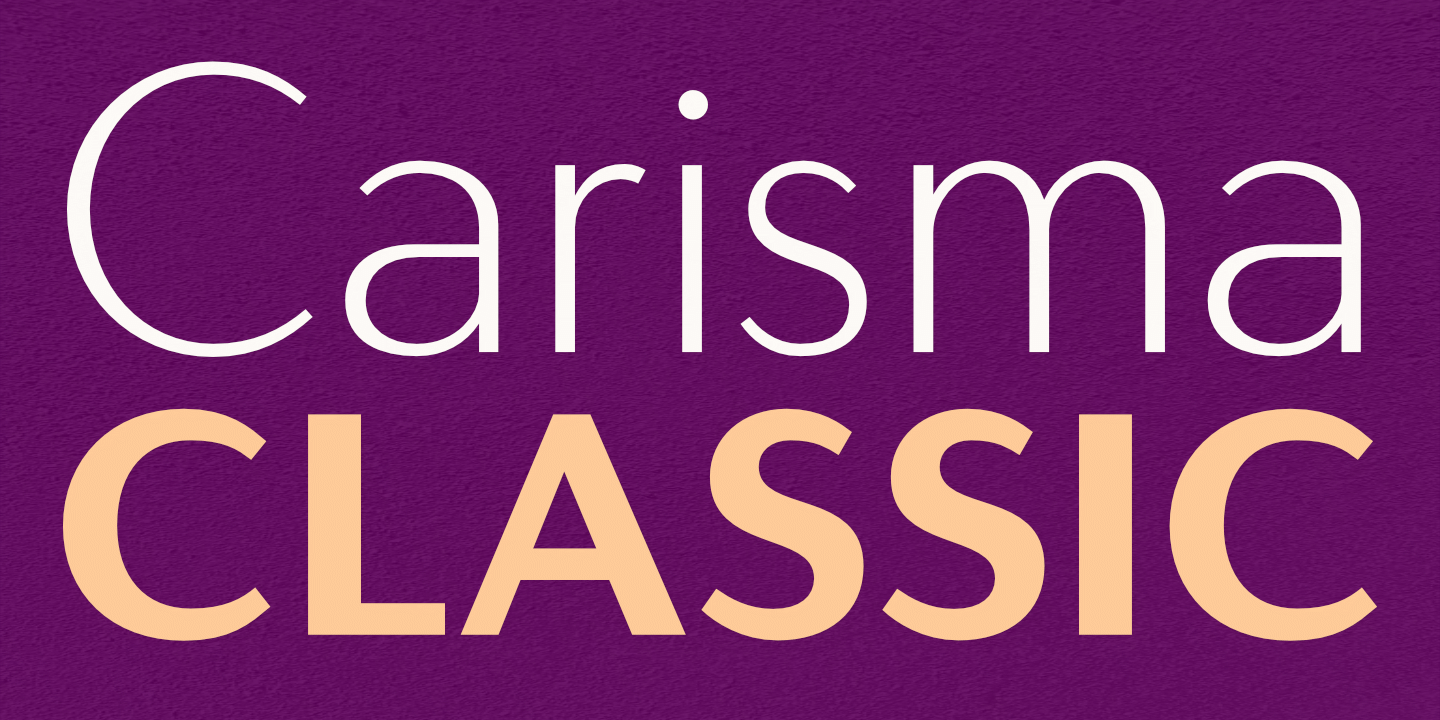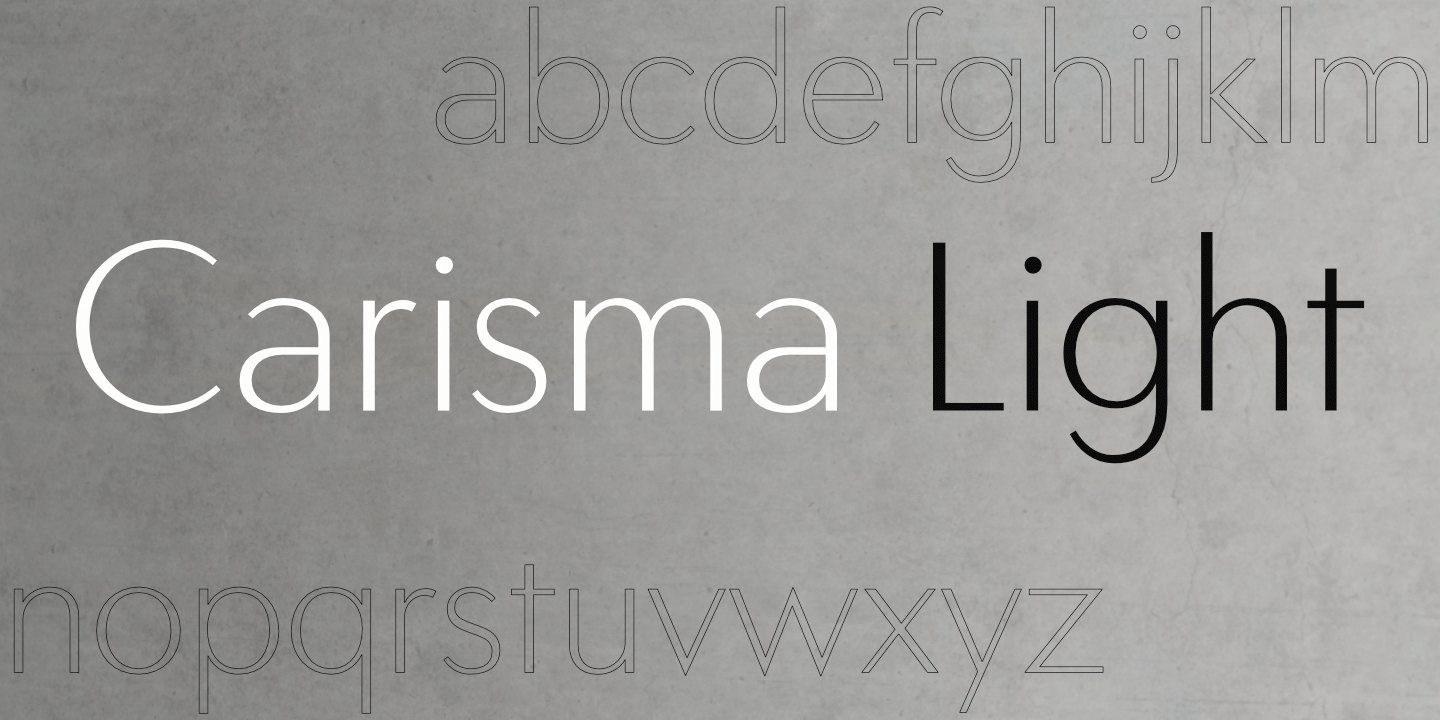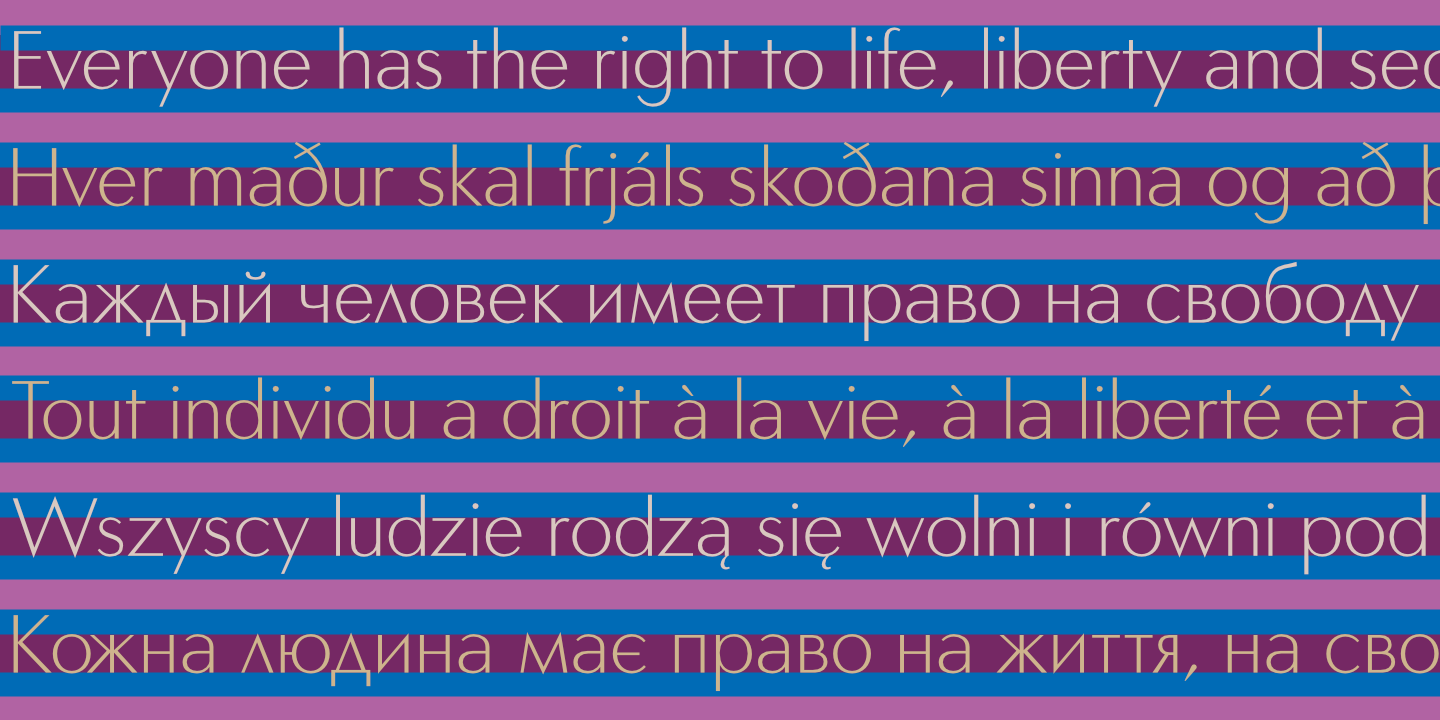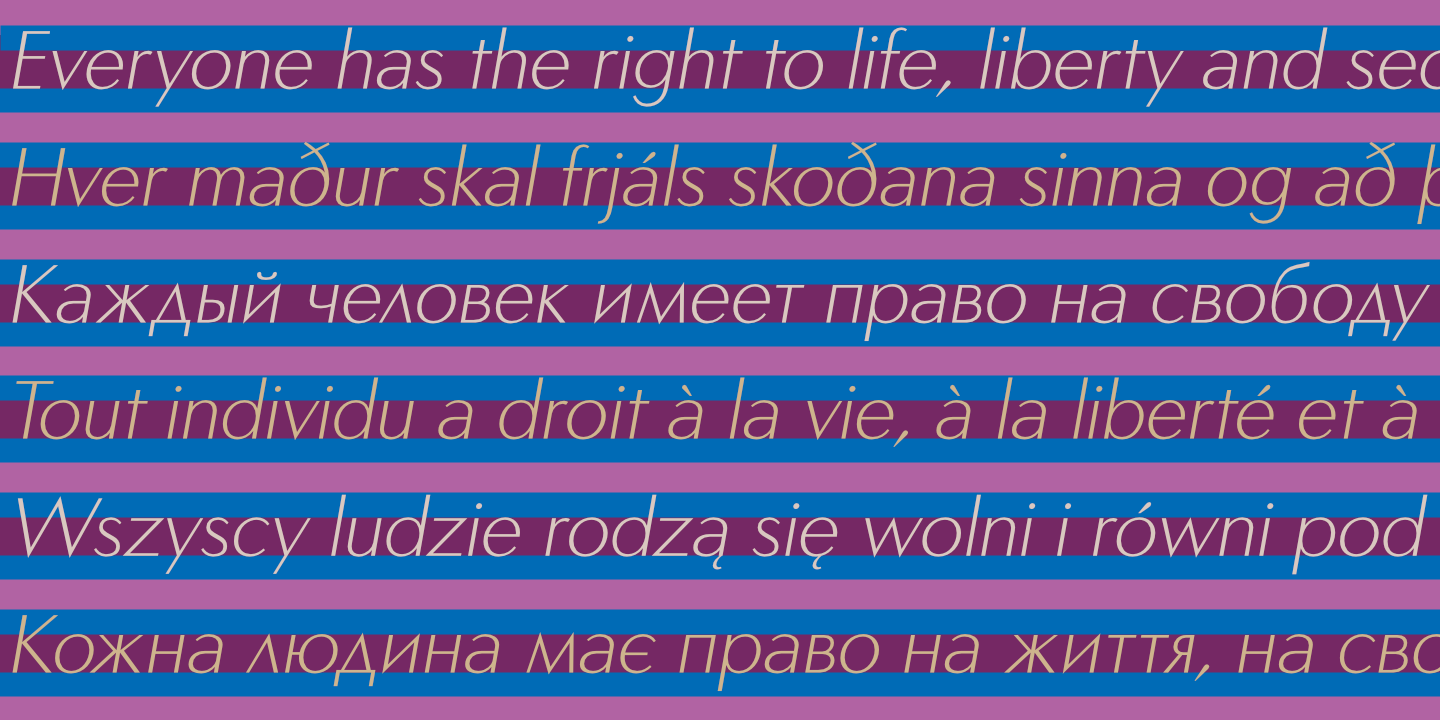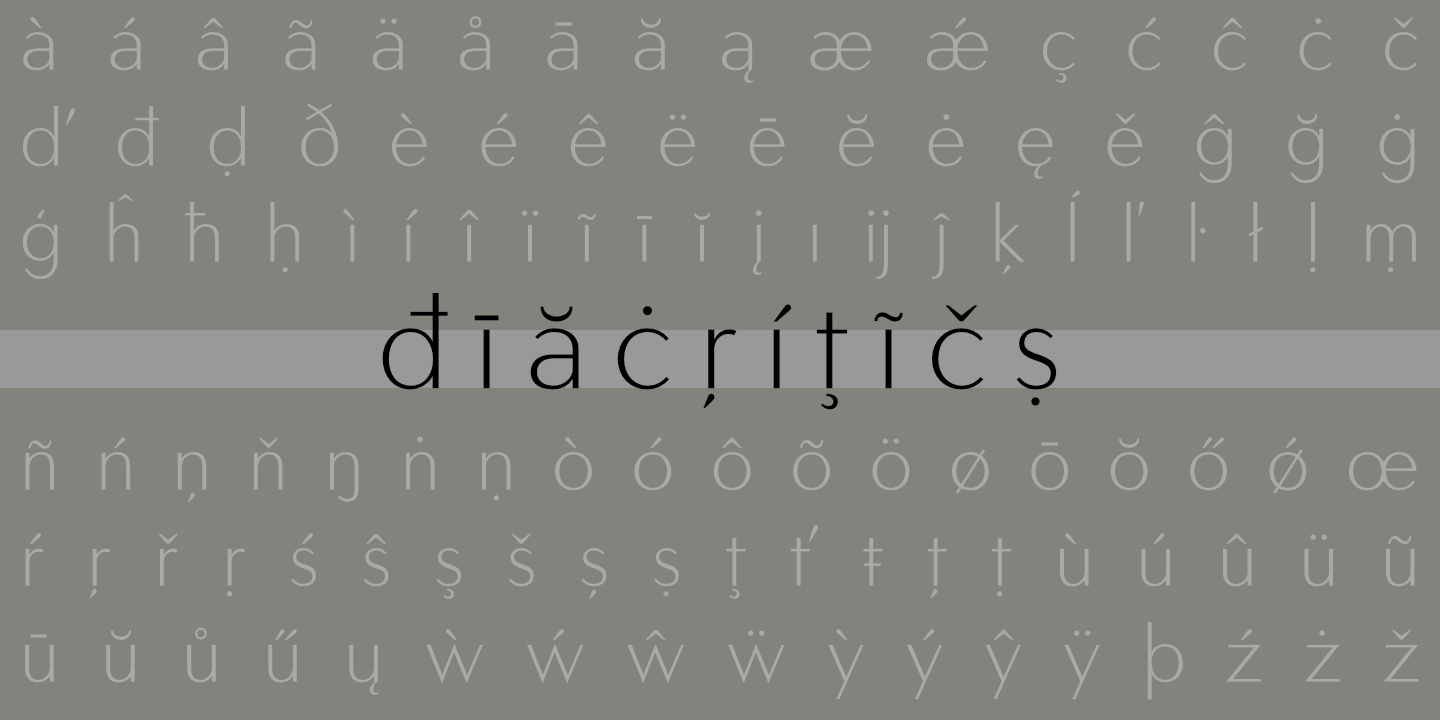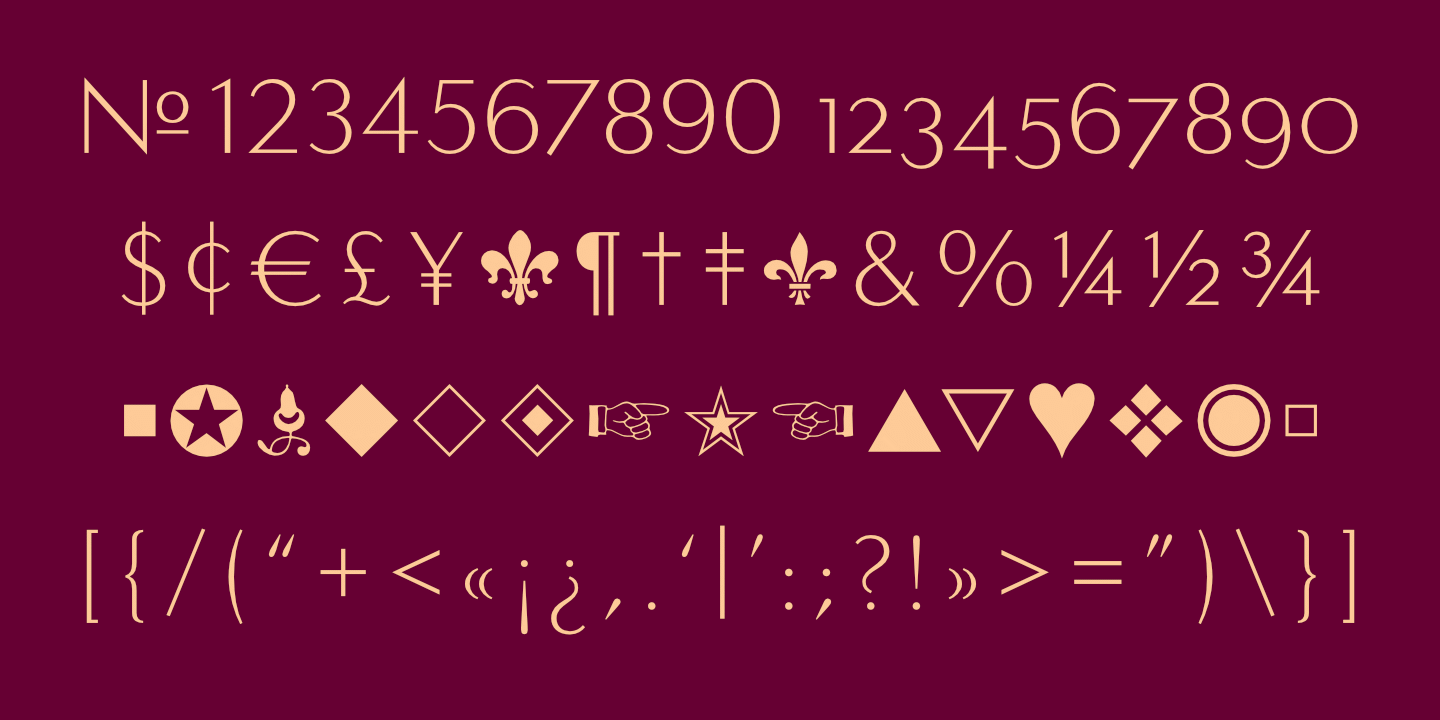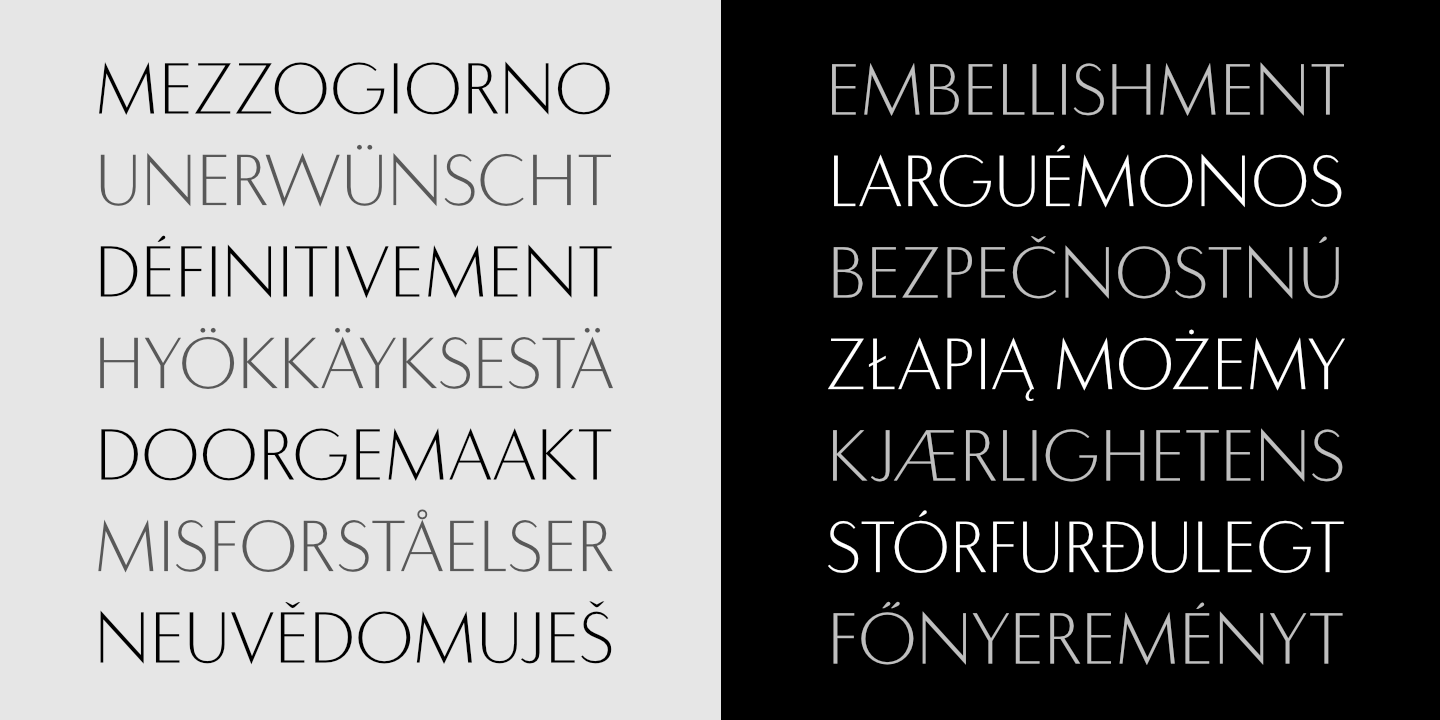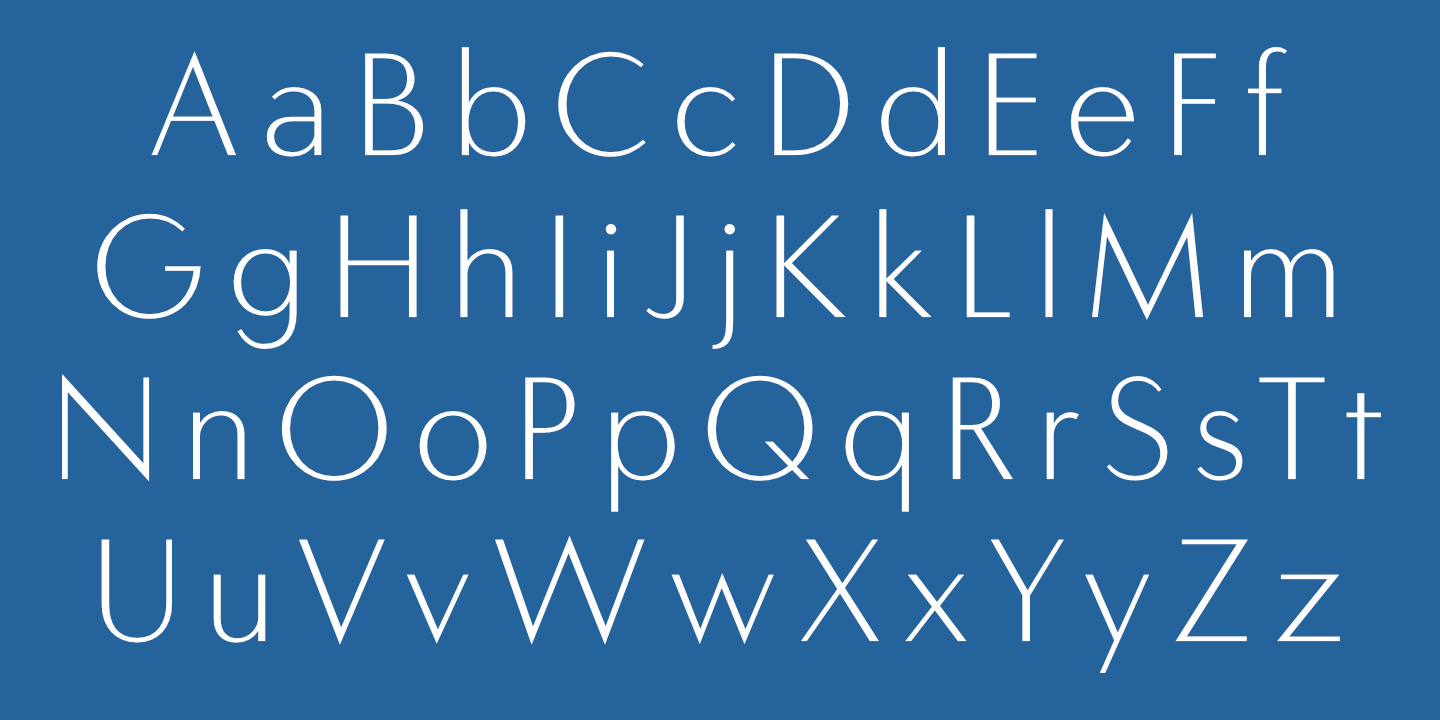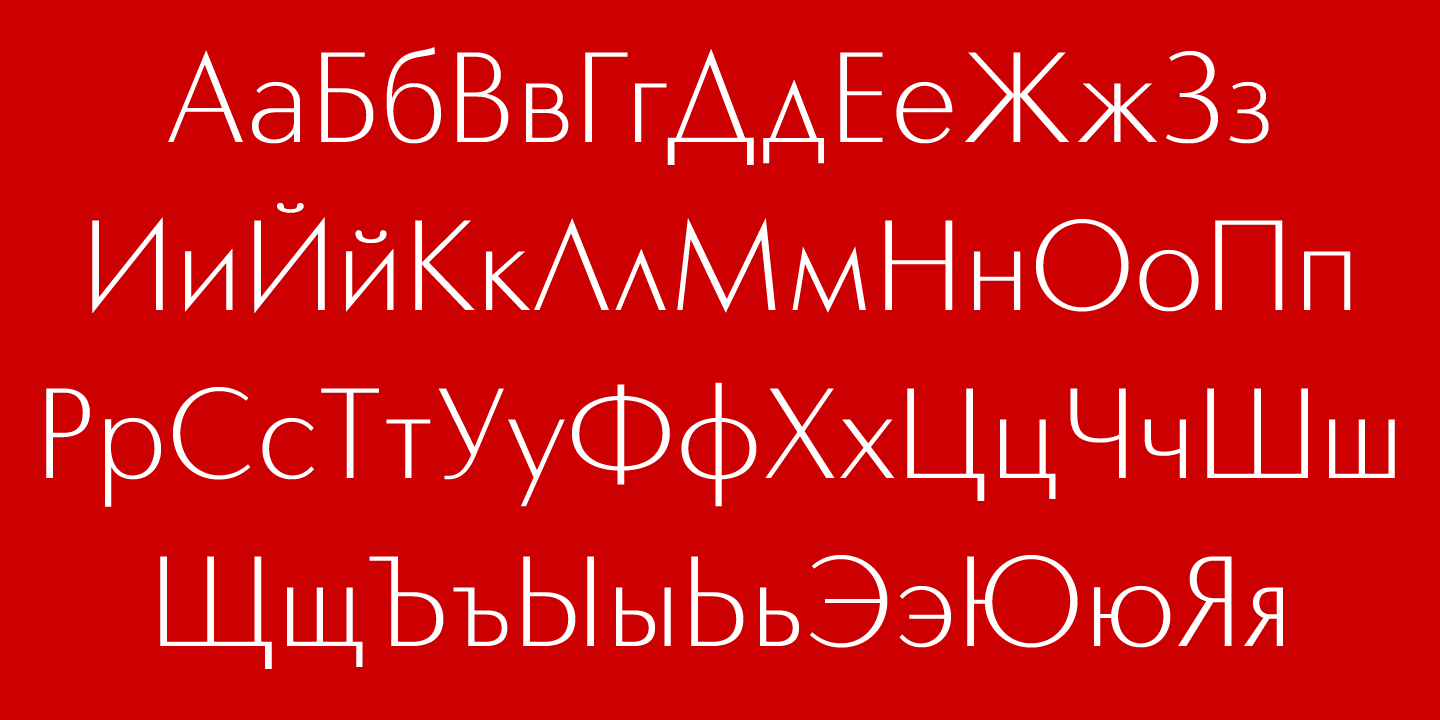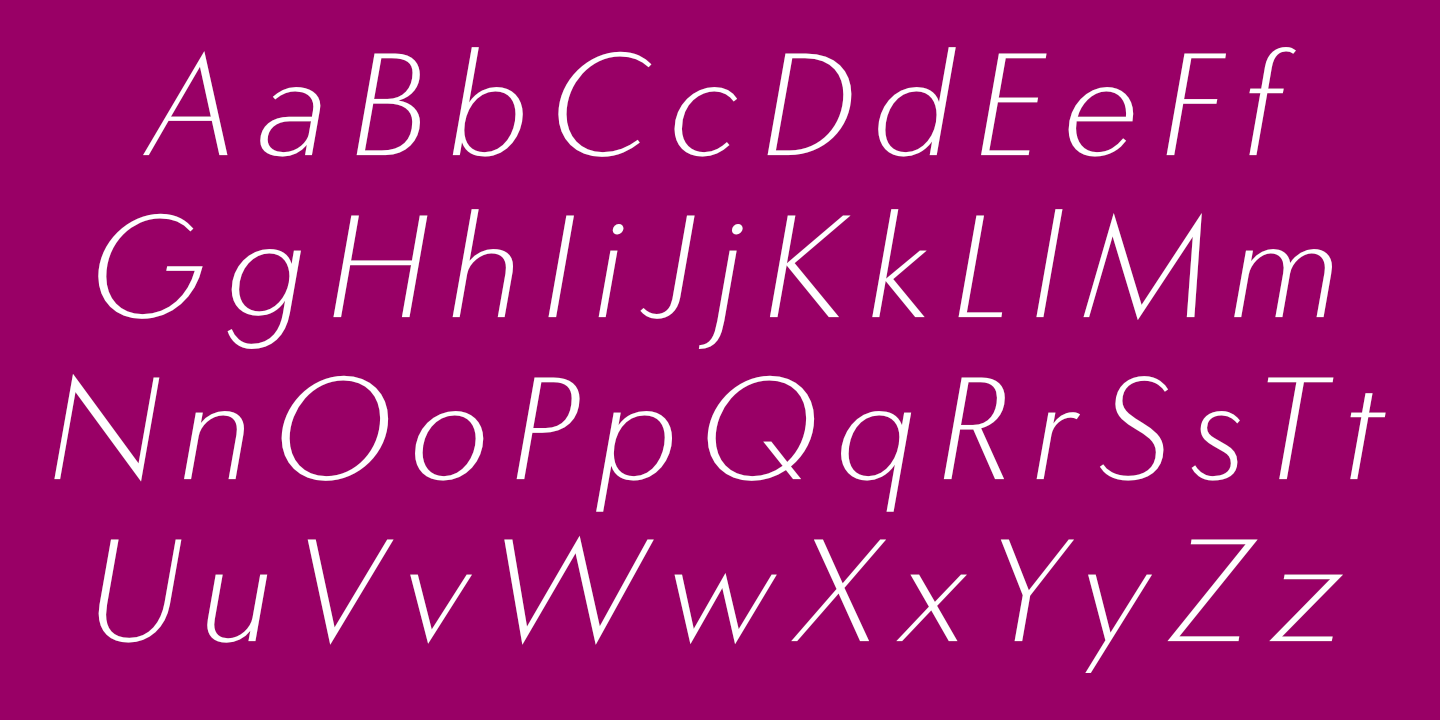
Carisma Classic Light: Basic Latin alphabet. See Glyphs for details.
Carisma Classic Light Oblique: Basic Latin alphabet.
Carisma Classic Light supports most languages that use the Cyrillic alphabet. See Glyphs for details.
Carisma Classic Light: Numerals, basic punctuation, currency symbols, and a sampling of ornaments.
Carisma Classic Light and Oblique (below) support most European languages.
Carisma Classic Light as used extensively in the fashion magazine, Reiss Journal, above and below.
The Carisma Classic family includes an oblique version of each weight.
The Carisma Classic family supports over 140 languages, including Spanish (above) and Bulgarian (below).